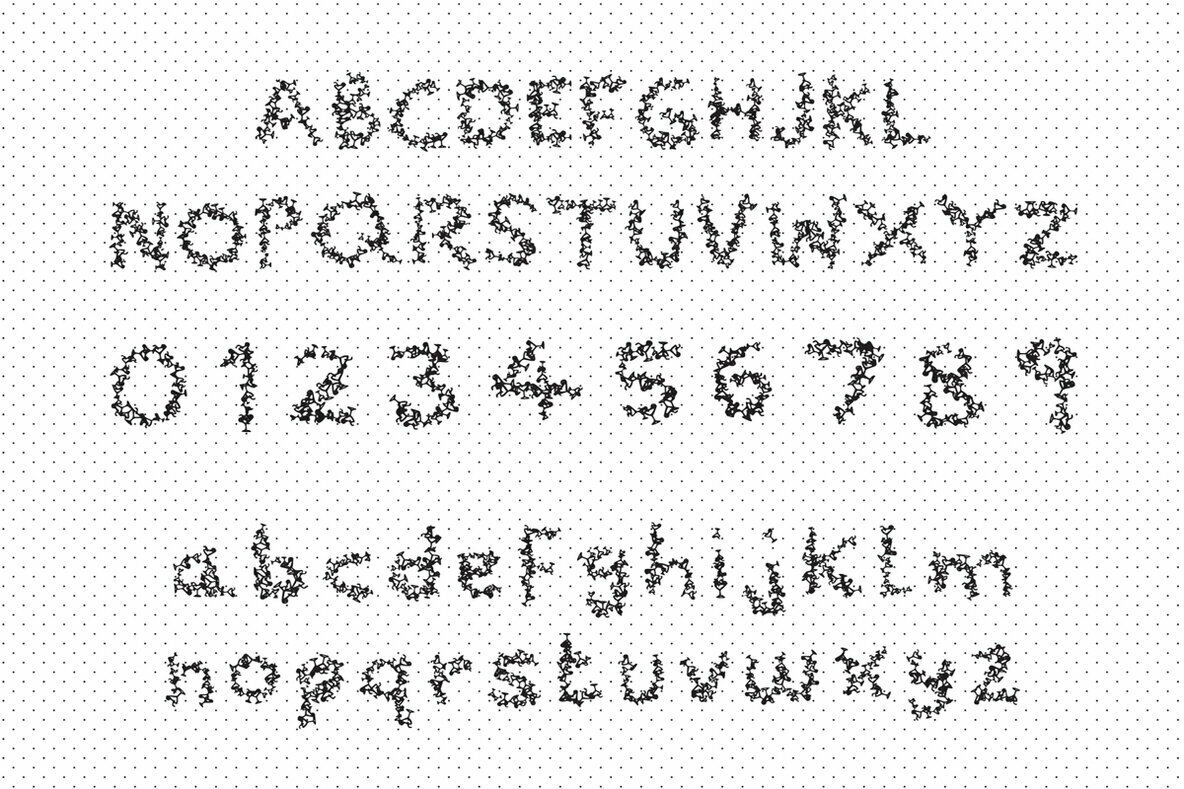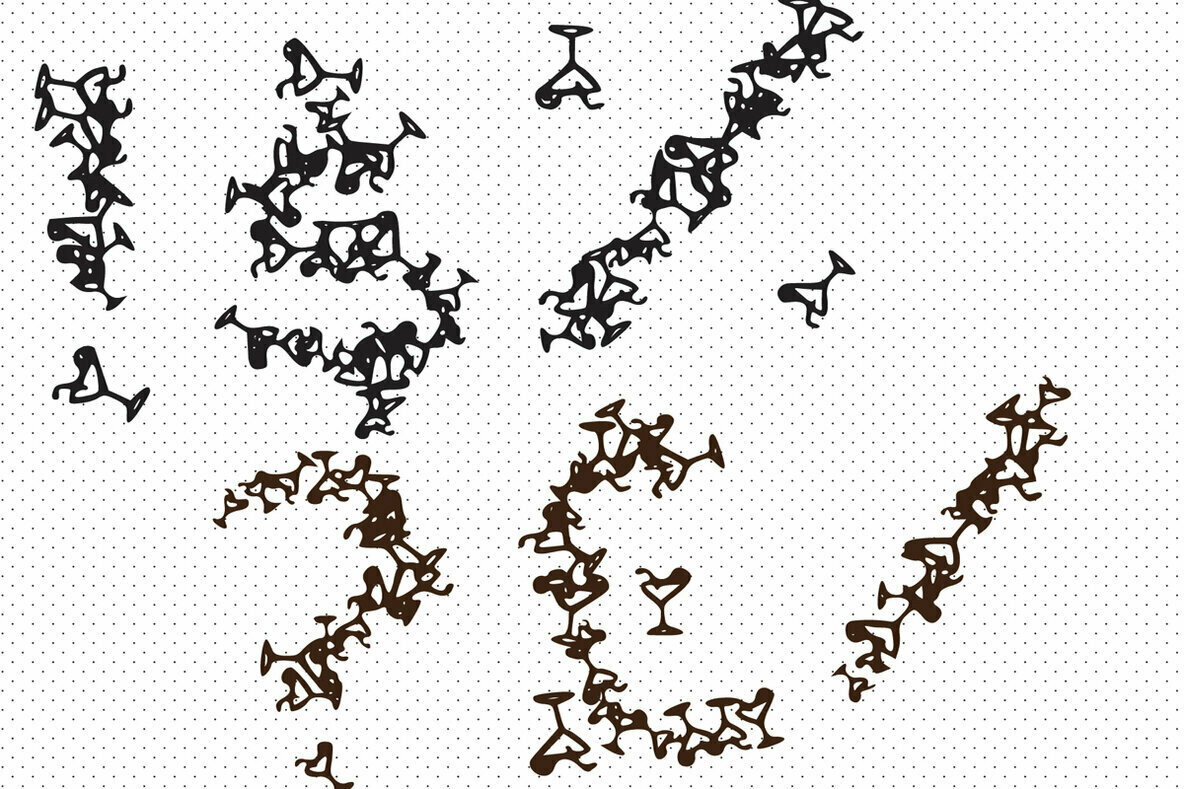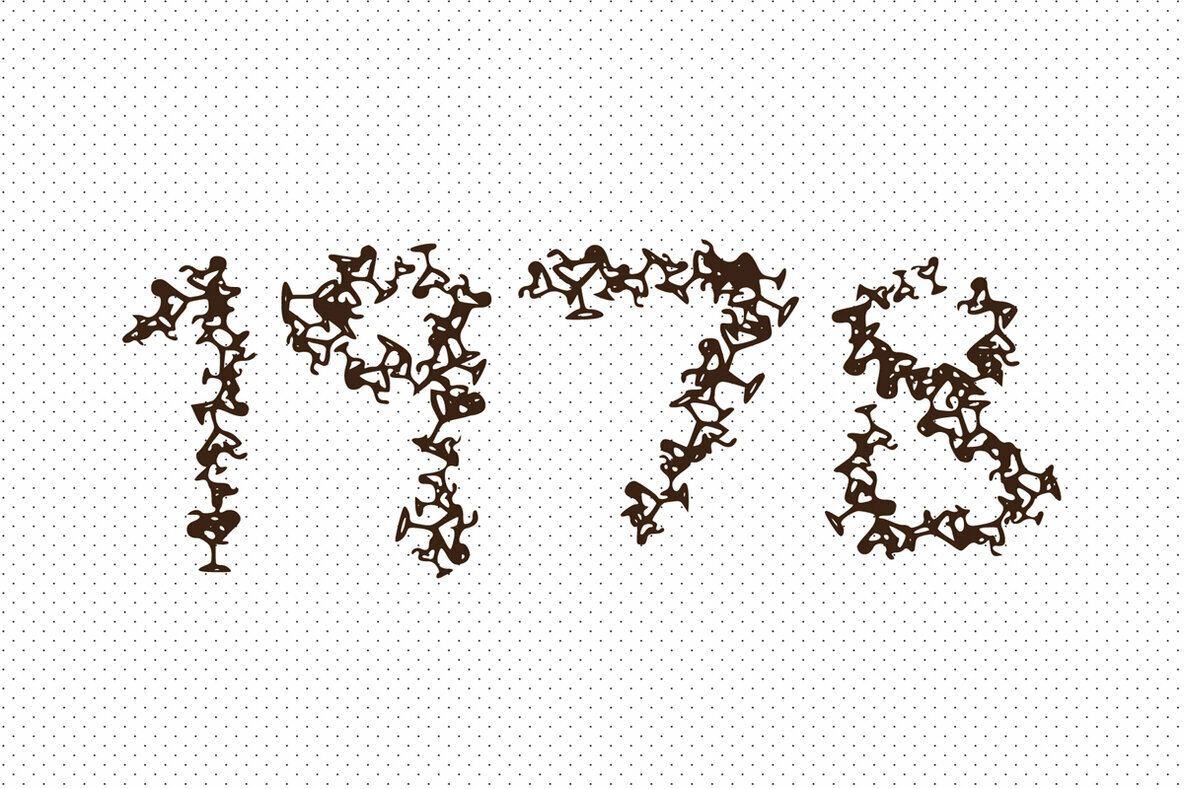
Drunk is a fun display font. It features small cocktails characters that form each letters. Take your designs to the next level with this amazing font!